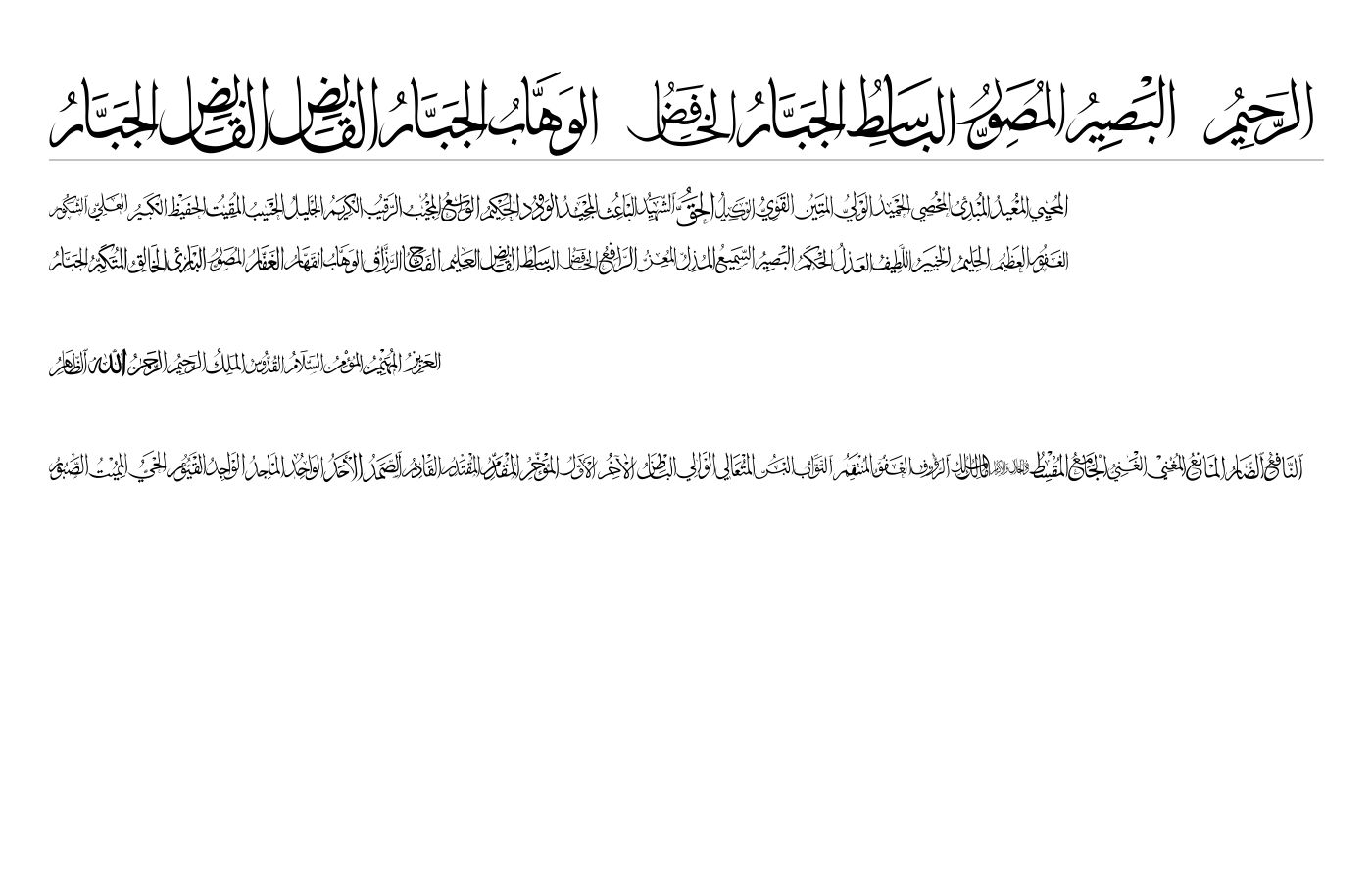
Allah Names 3 is an elegant Arabic calligraphic font characterized by its slender, graceful strokes and delicate curves that reflect traditional handwritten script styles. Its refined lines and fluid letterforms convey a sense of spirituality and sophistication, making it ideal for religious texts, formal invitations, or cultural branding where a classic, artistic touch is desired. This font works beautifully in settings that require both readability and an expressive, ornamental aesthetic.
allah names 3 Font
About allah names 3 Font
| Font family | allah names 3 Font |
| Designer | elharrak fonts |